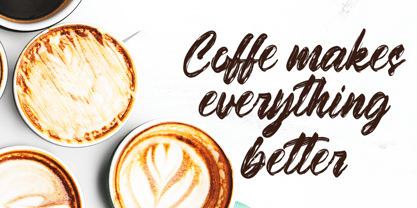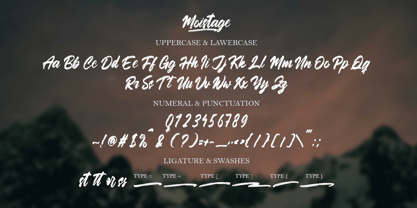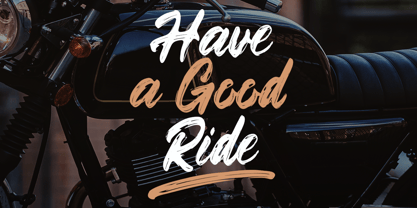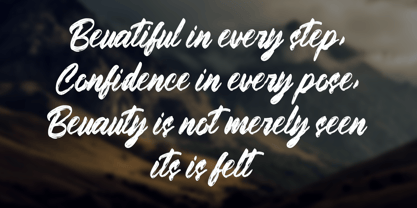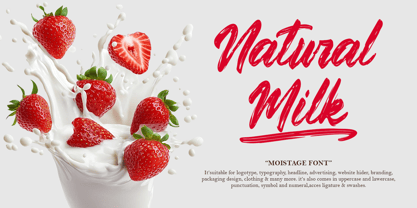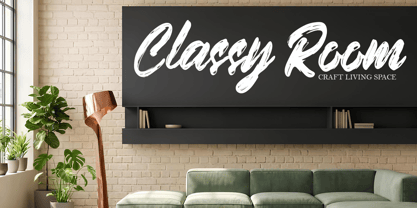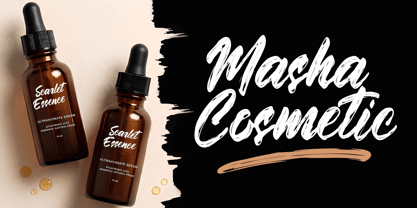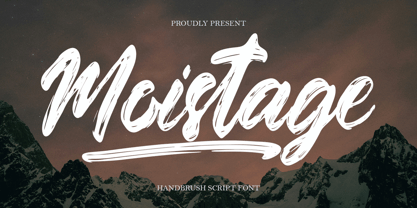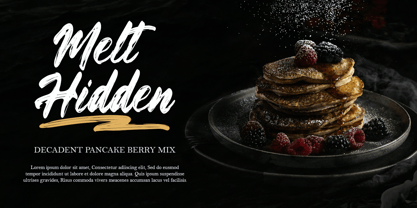
Moistage
by Tertoecreative
The Moistage Font Family was designed by Khai Dir and published by Tertoecreative. Moistage contains 2 styles and family package options. More about this family
Moistage is a sophisticated handbrush script font designed to bring elegance and refinement to your creative projects. With beautifully crafted letterforms, stylish ligatures, and a rich collection of beautiful, Moistage offers endless possibilities for creating distinctive and eye-catching typography. Blending classic charm with modern aesthetics, Moistage is perfect for designs that demand a luxurious and graceful touch. Its expressive decorative swashes make it ideal for creating unique logos, elegant headlines, and premium branding materials.
Designers: Khai Dir
Foundry: Tertoecreative